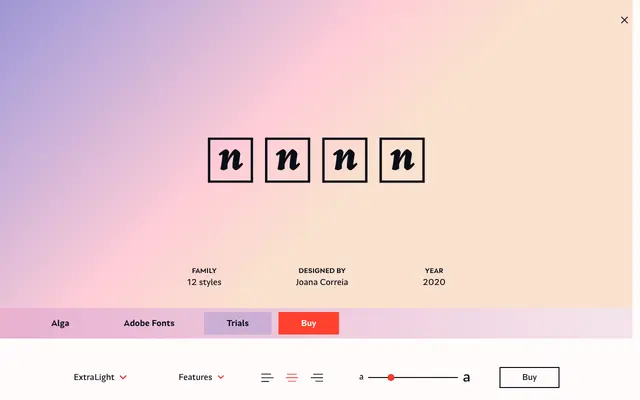
Alga
Nova Type Foundry · Joana Correia · 2020
A high-contrast modern serif by Joana Correia, designed around tall proportions and expressive curves suited to headlines and display work.
Designed by Joana Correia and released in 2020, Alga began as an exploration of a tall, elegant form in the lighter weights before evolving into a high-contrast serif at bolder settings. The family spans six weights from ExtraLight to Bold, each with a matching italic, giving twelve styles in total. It performs best at larger sizes and in short editorial copy, where its fancy curves and lively character read clearly.
Alga is described as a high-contrast modern typeface, with contrast increasing significantly from the lighter to bolder weights, placing it squarely in the modern or didone serif tradition.